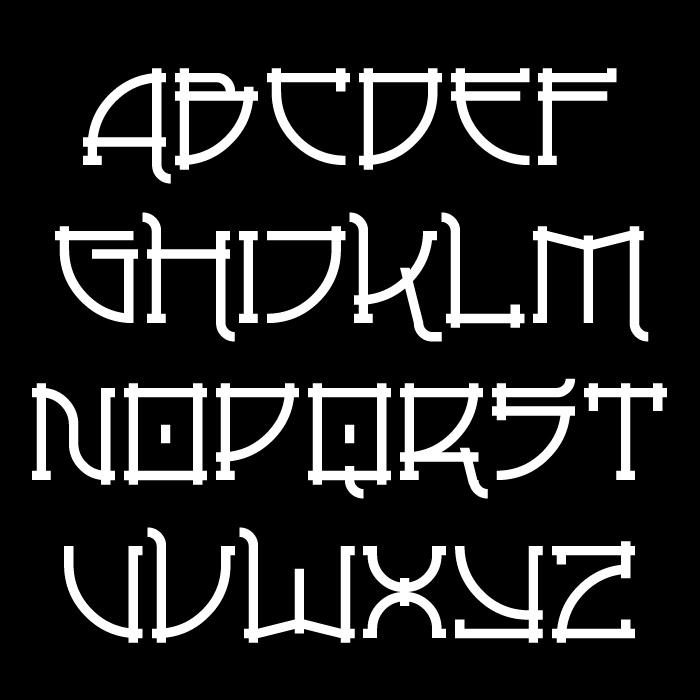
Great Japanese flair. The J is perfect for the katakana fu.
This font's got character written all over it. Great work, probably amongst the best of Fontstruct's best!
Looks very Asian. The occasional higher or lower verticals are surprising and fit the design well
Mi piace ,molto carino.